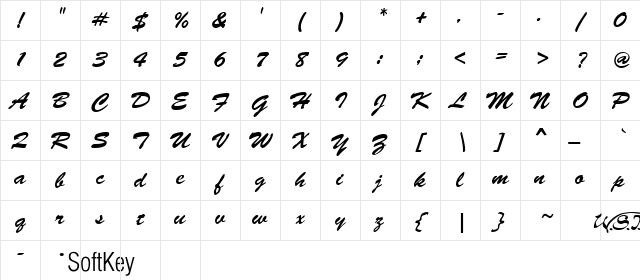
Spray Script Regular Free Font
Spray Script Regular
Complete Spray Script Regular glyph index. Displaying only characters natively supported by Spray Script Regular font.
Design Context for Spray Script
Spray Script flows with the natural rhythm of handwritten lettering, making it ideal for designs that call for warmth and personal expression.
Font Pairing: Combine Spray Script with a simple geometric sans for maximum contrast - the tension between flowing curves and clean structure is a classic typographic pairing.
Pro Tip: Use Spray Script for short runs of text - names, titles, or taglines. Extended body copy in script faces tires the eye quickly.